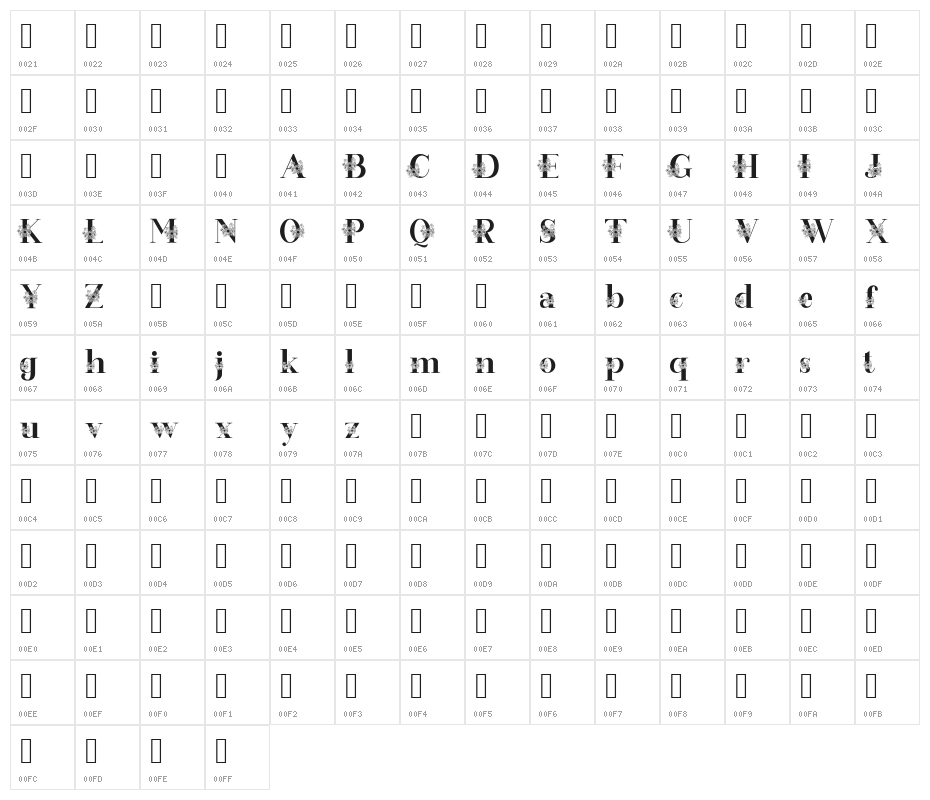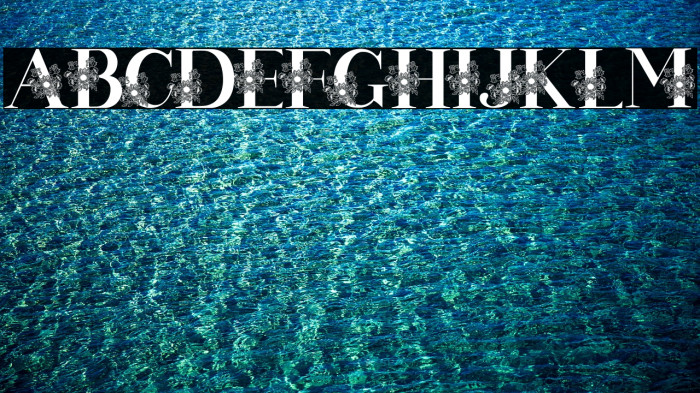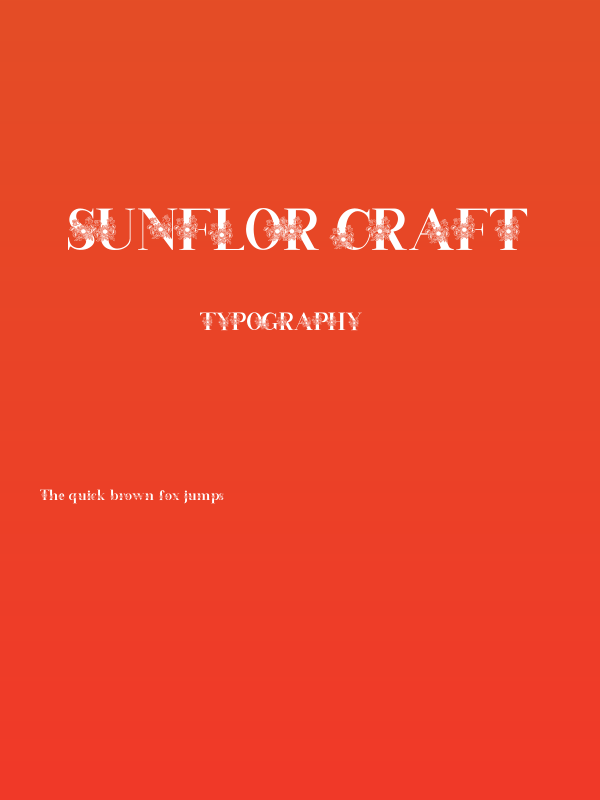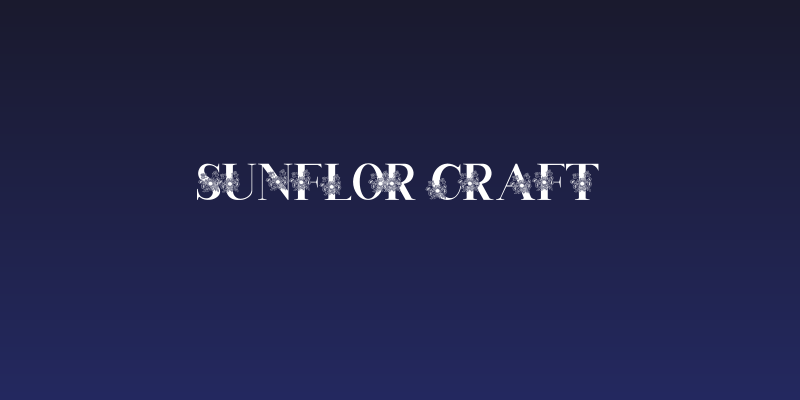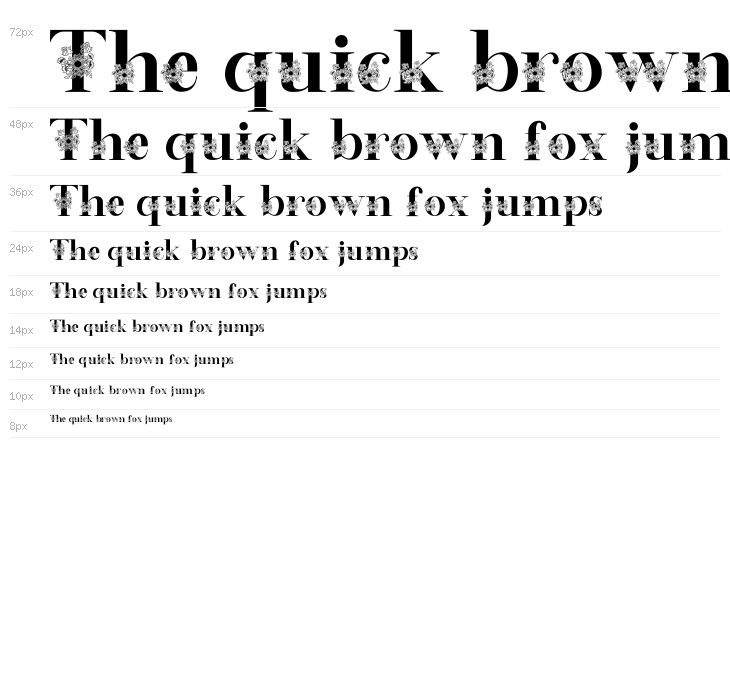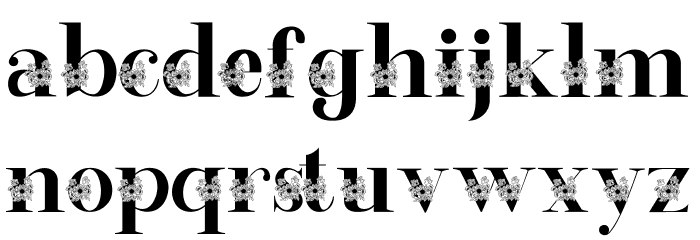
Sunflor craft Font
Sunflor craft Description
This decorative font features a unique floral pattern integrated into the bold, serif letterforms. Each character is adorned with intricate floral designs, creating a harmonious blend of nature and typography. The uppercase and lowercase letters maintain a consistent style, with strong vertical lines and pronounced serifs that add a touch of elegance. The floral elements are detailed and provide a striking contrast against the solid black of the letters, making each character stand out. The font's artistic flair makes it ideal for creative projects that require a touch of sophistication and nature-inspired aesthetics.
| Proposed Projects | Ideal for wedding invitations, greeting cards, branding for floral shops, and decorative posters. |